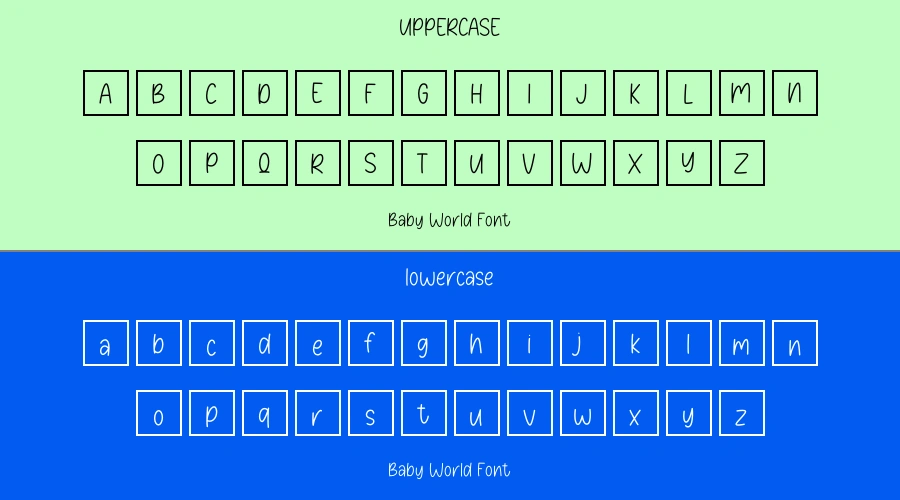
About Baby World Font
When typographic excellence matters most, Baby World Font delivers through its thoughtful blend of hairline details and personality. Specially crafted for classic books, it offers the sophistication and reliability required for sophisticated design work. Every detail serves a purpose.
The character set showcases thoughtful details like rounded apexes alongside functional expert sets. This proves especially valuable in data tables, where headline impact directly influences results. Particular attention was paid to descender depth and cultural context during development.